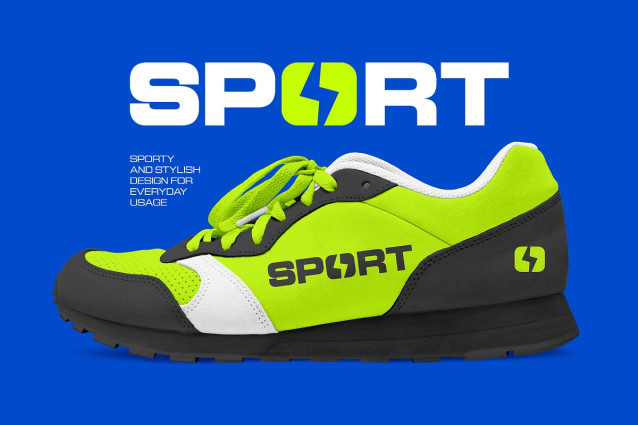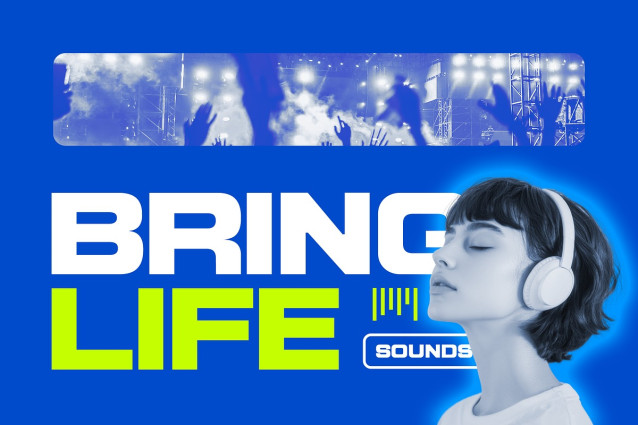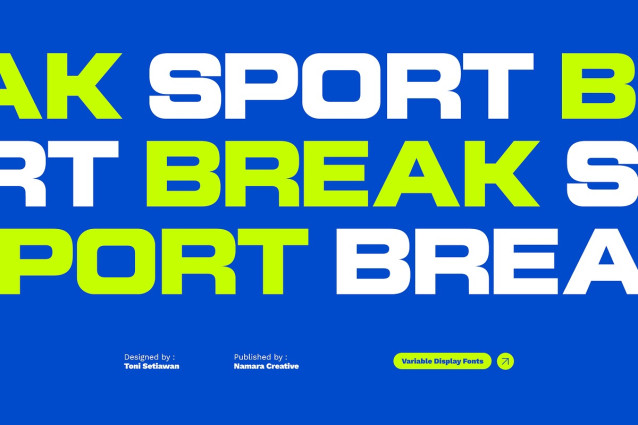
Sport Break Font
Sport Break Font is a modern sport-inspired variable typeface designed to boost the energy of any visual project. With bold rounded cuts corner, and high-impact proportions, this font delivers a fast, powerful, and futuristic impression. perfect for brands that want to stand out with confidence.
Created with versatility in mind, Sport Break includes multiple weights, alternates and sporty ligatures that give your typography a unique and professional edge. Whether you’re designing apparel, fitness branding, product packaging, team jerseys, or advertising materials, this font provides the right mix of strength and flexibility.